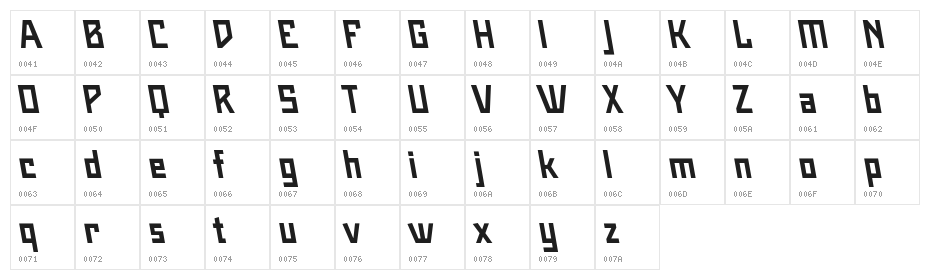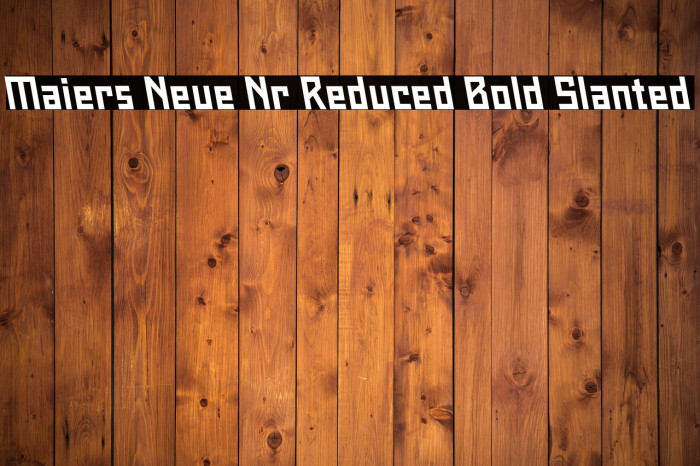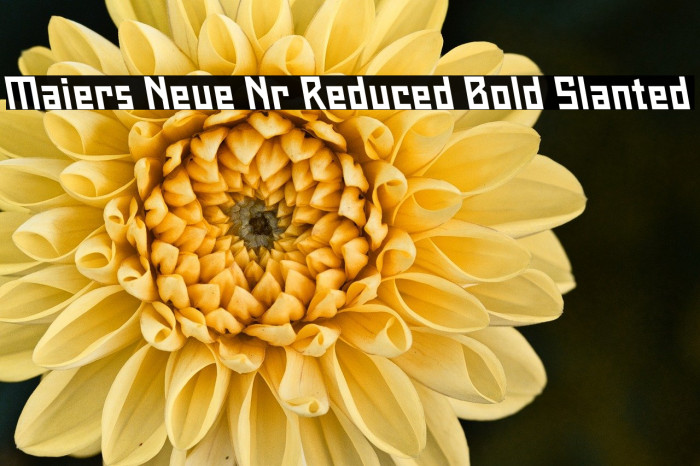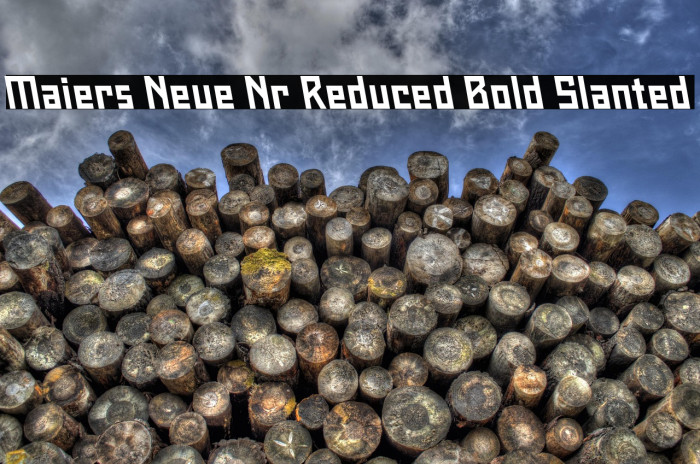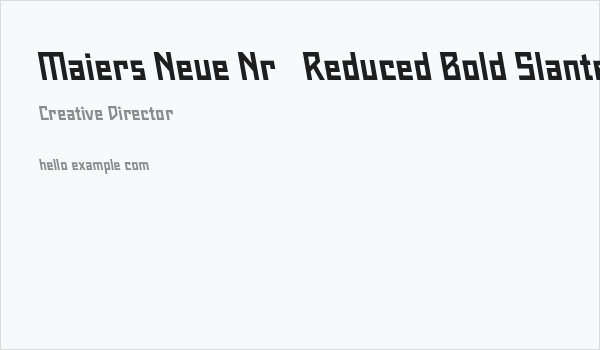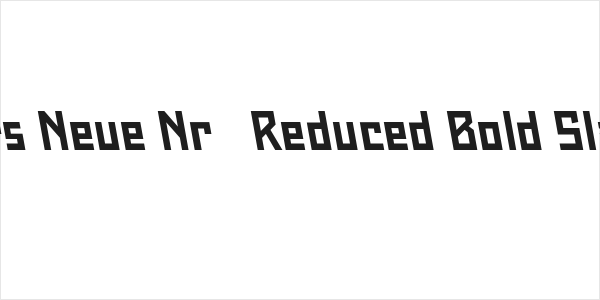
Maiers Neue Nr.8 Reduced Bold Slanted Font
Maiers Neue Nr.8 Reduced Bold Slanted Description
This font features a bold and slanted style with a modern, geometric appearance. The characters are angular with sharp edges, giving it a dynamic and assertive look. The uppercase and lowercase letters maintain a consistent slant, enhancing the font's cohesive design. The bold weight of the font ensures strong visibility, making it suitable for impactful headlines and titles. The character spacing is relatively tight, which contributes to its compact and robust feel. The font's overall style is contemporary and assertive, ideal for projects that require a strong visual presence.
Proposed ProjectsIdeal for branding, posters, headlines, and any design requiring a strong, modern impact.